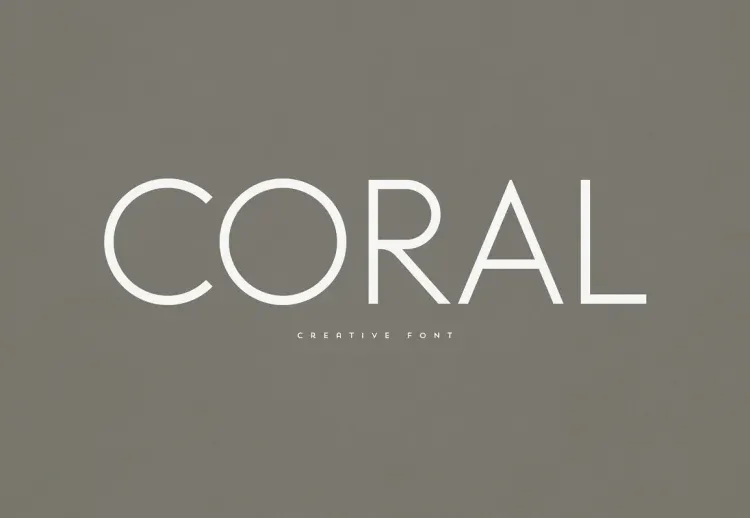
Coral Font
Coral is a sophisticated and adaptable sans serif font crafted to elevate any design project. Whether used in headlines, logos, branding, or simple text, Coral’s sleek and modern aesthetic will captivate and impress your audience.
This font is ideal for diverse applications such as homeware designs, product packaging, magazine headers, and more. It also excels as an elegant text overlay, enhancing background images with a touch of refinement. Coral effortlessly blends style and functionality, making it a must-have for your design toolkit.